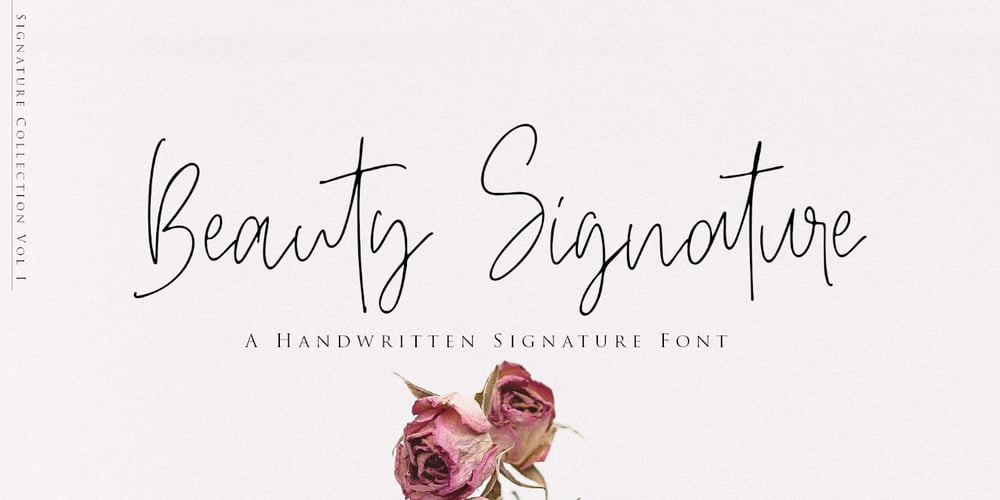
Beauty Signature Font
Beauty Signature Font font
Beauty Signature Font Font Family was designed by Dimas Prasetyo and published by DM Studio. Beauty Signature Font contains 1 styles and family package options. Beauty Signature Font is a sophisticated and elegant handwritten typeface that adds a touch of luxury and personalization to your designs. Perfect for branding, invitations, signatures, and high-end projects, this font exudes class and refinement. With its fluid strokes and graceful curves, Beauty Signature Font brings an air of elegance and beauty to any design.Features: Elegant Handwritten Design: The Beauty Signature Font features fluid strokes and graceful curves that mimic the natural flow of handwriting, creating a personalized and refined look. Versatile Application: Ideal for a wide range of projects including branding, wedding invitations, personal signatures, luxury packaging, and more. Uppercase and Lowercase Letters: Includes both uppercase and lowercase letters for creative flexibility. Ligatures and Special Characters: A rich set of ligatures and special characters to enhance the visual appeal and uniqueness of your typography. Punctuation and Symbols: A comprehensive collection of punctuation marks, numerals, and symbols for versatile use. Easy Installation and Use: Simple to install on both Windows and Mac operating systems. Seamlessly integrates with popular design software such as Adobe Photoshop, Illustrator, and InDesign.